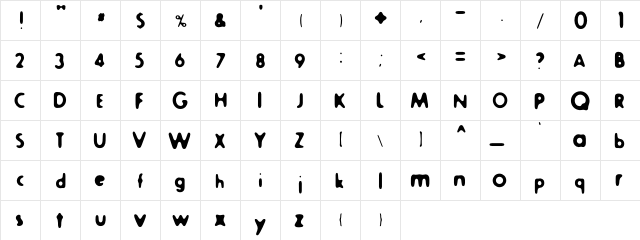
Fur ExtraRounded
Design Context for Fur Typeface
Fur uses gentle rounded endings to create a warm, inviting typographic personality — less corporate than geometric sans, more refined than playful display fonts.
Well-suited to UI design, mobile interfaces, and any brand that wants approachability without sacrificing clarity.
Font Pairing: Pairs well with a rounded or humanist sans for body copy, maintaining the friendly tone without relying on Fur to carry extended reading.
Pro Tip: Use Fur for UI elements, app interfaces, and anywhere a friendly, approachable tone needs to be maintained without sacrificing clarity.